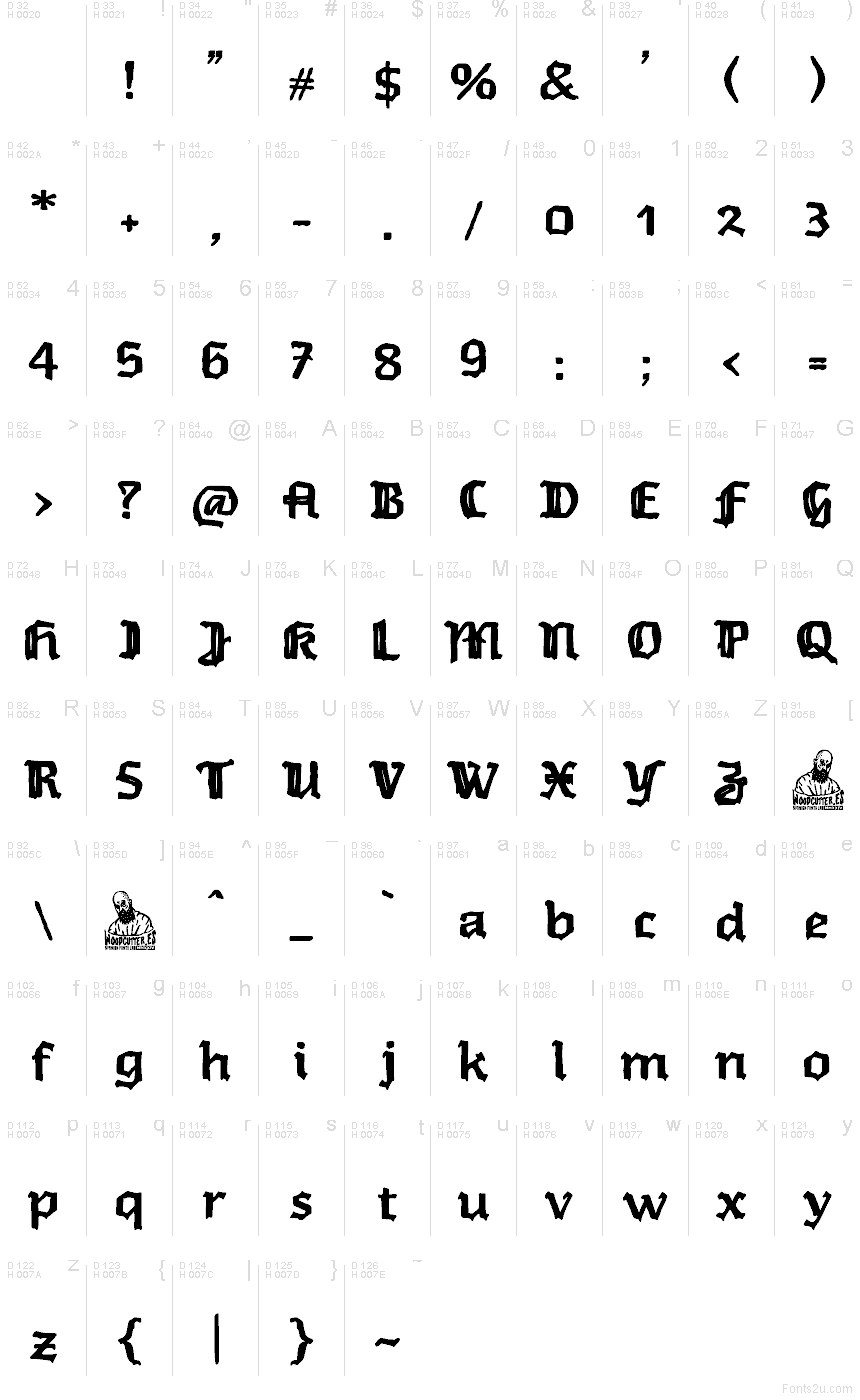
Spanish Old War
Spanish Old War font by Woodcutter is a free gothic typeface that drips with battlefield drama and old-world menace. Its jagged, ink-bled curves and uneven strokes feel like they were carved into weathered stone or scratched across a war banner, giving every word a raw, historical weight. Letters bunch together with a dense, black texture that instantly pushes designs into darker, grittier territory.
Using Spanish Old War, your titles snap into character on horror posters, medieval game logos, metal band artwork, book covers, escape room branding, and historical fantasy event flyers. This free font thrives at large sizes where its rough edges and spikes can really show. Pair it with a clean, light sans serif for body text to keep layouts readable while letting Spanish Old War carry the mood.
Spanish Old War.